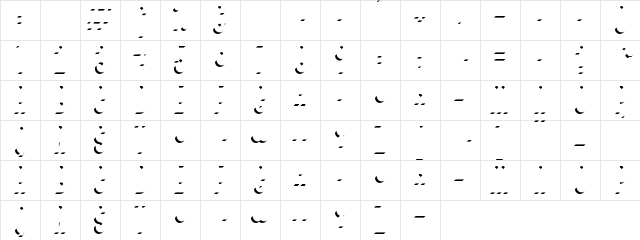
Bivoac Dark Shadow Demo Dark Shadow Font Preview
Bivoac Dark Shadow Demo Dark Shadow
Design Context for Bivoac Dark Shadow Demo Typeface
Bivoac Dark Shadow Demo brings ornamental detail and strong personality to headlines and identities, where visual impact matters more than quiet functionality.
Font Pairing: Pair with a clean neutral sans-serif for body copy to let Bivoac Dark Shadow Demo's character lead without overwhelming the composition.
Pro Tip: Treat Bivoac Dark Shadow Demo as the centrepiece of your typographic hierarchy. One strong heading set in a decorative face can carry an entire layout.